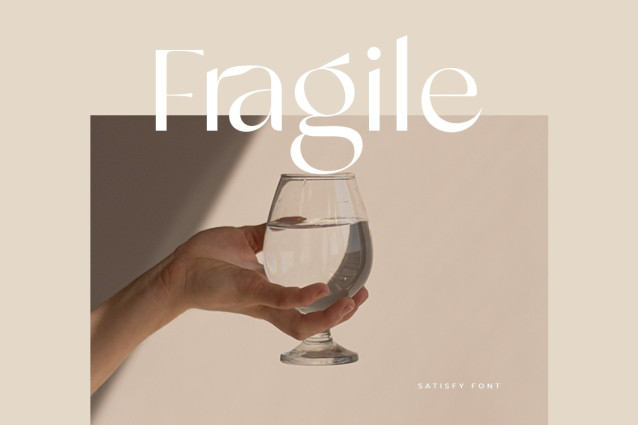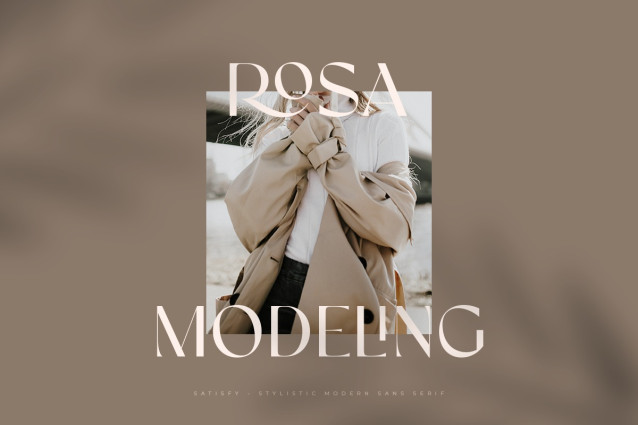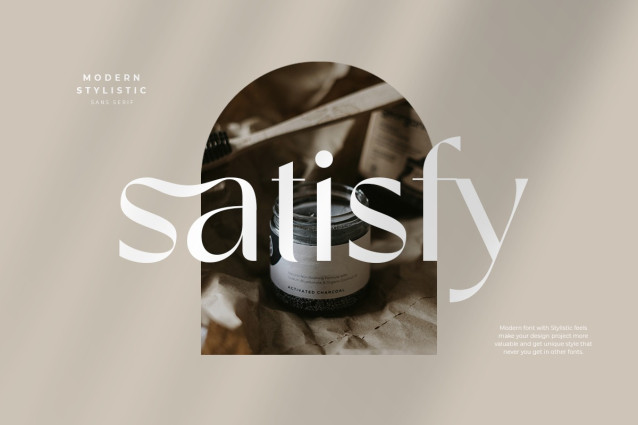
Satisfy Font
Satisfy Font a new Sans serif that we created special for branding needs, with extra ligature in unique shape add value of your brand. It so nice to leverage designer or product owner that need solutions to make their design look more stylish and modern. And specially for satisfy font, We prepared any ligatures, and any alternate characters to help you create unlimited variations for your creative needs.